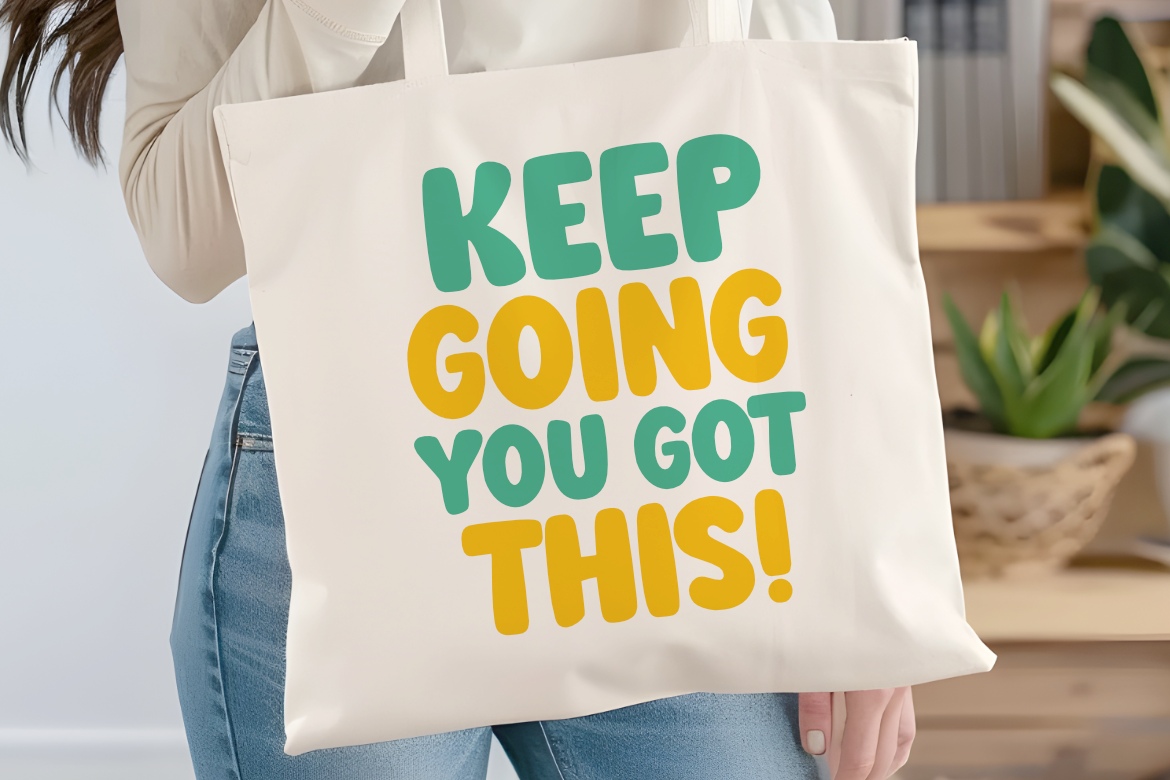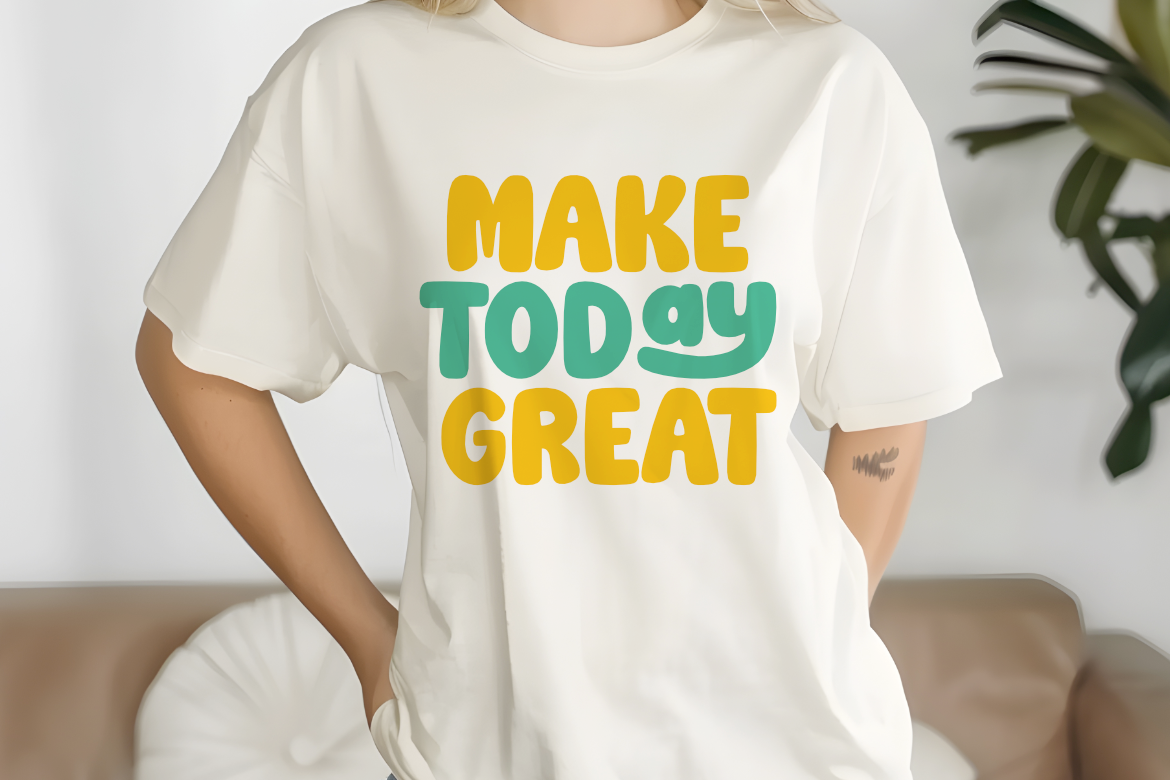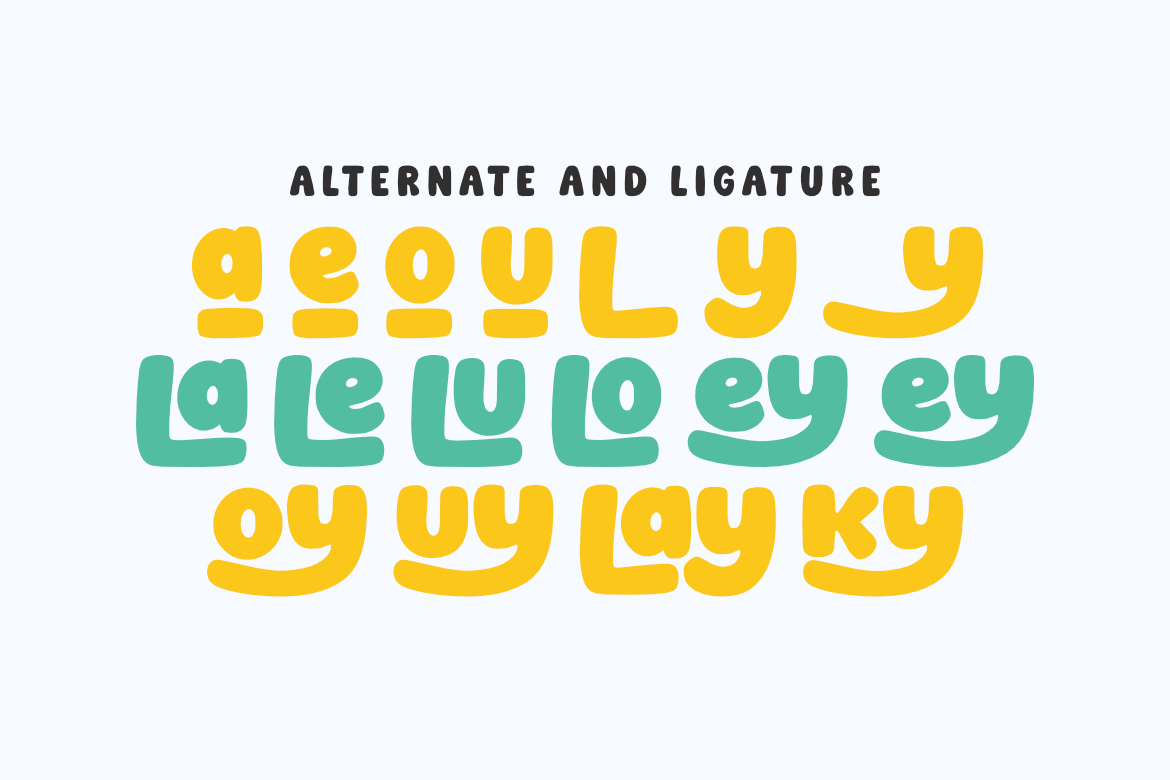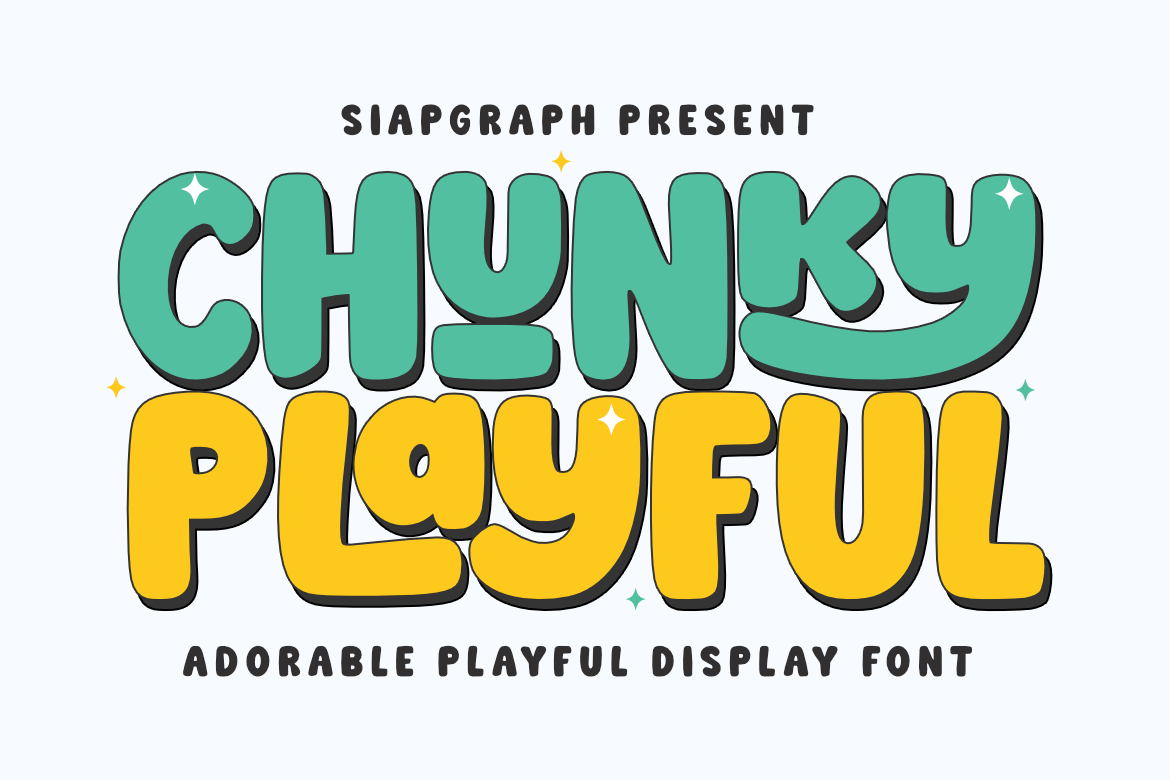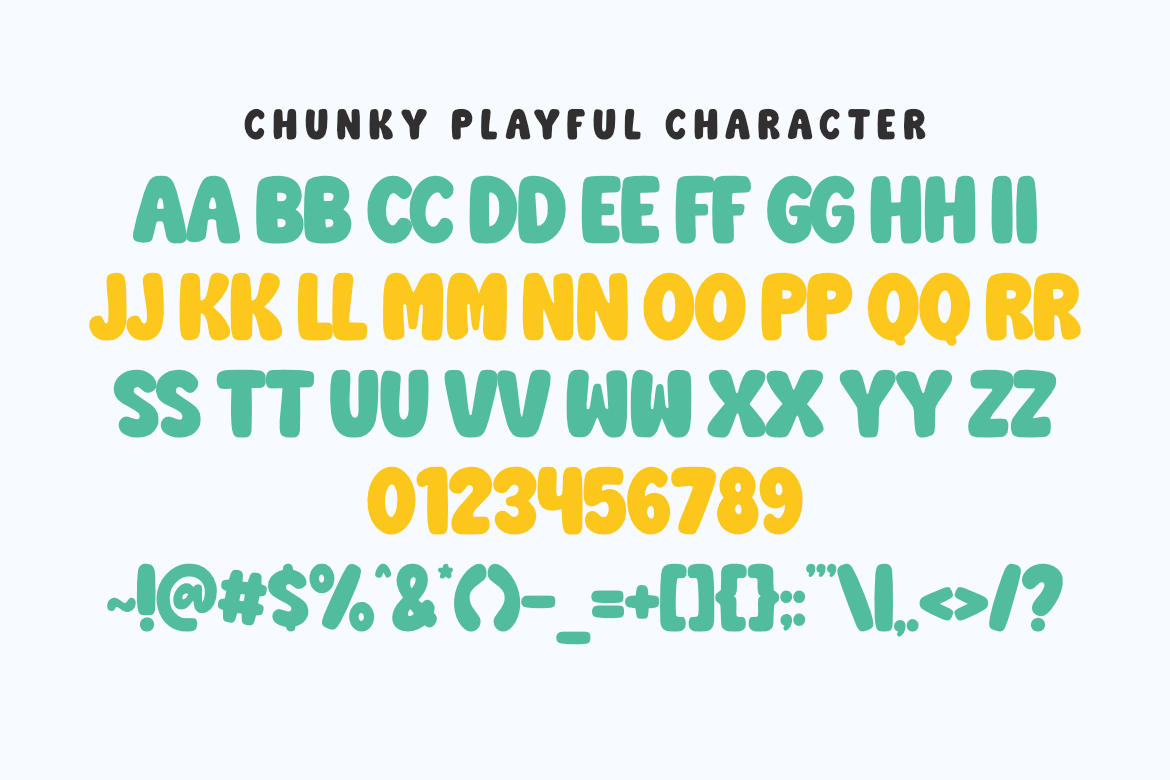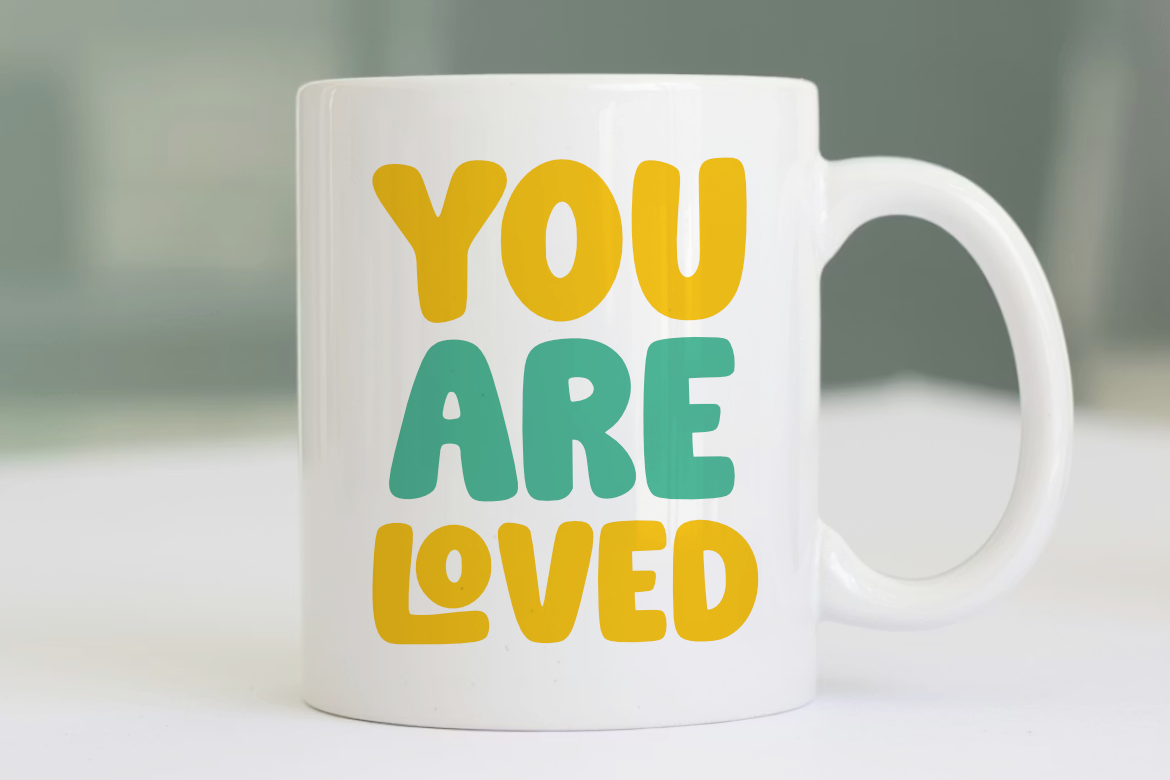
Chunky Playful - Adorable Bubble Font for Cricut and Sublimation
Adorable Playful Bubble Display Font for Cricut and Sublimation
Chunky Playful is an adorable bubbly display font inspired by the soft, rounded shapes of retro pop culture and cheerful childhood snacks. This typeface features bold, thick strokes and a friendly, energetic personality designed to bring an instant sense of joy and warmth to your creative projects.
This font is a must-have for the Craft, POD (Print On Demand), and DIY communities. Its smooth outlines and high-readability structure are meticulously crafted to ensure a perfect experience for vinyl cutting, sublimation, and high-quality digital printing.
Perfect for: creating eye-catching SVG cut files, personalized children's t-shirt designs, vibrant stickers, nursery wall art, custom mugs, playful school posters, and social media branding. It also works beautifully for birthday invitations, tote bags, and digital scrapbooking layouts.
Great for holiday themes such as Birthdays, Children's Day, Summer vacations, and Back to School season, adding a bright and optimistic touch to every seasonal celebration!